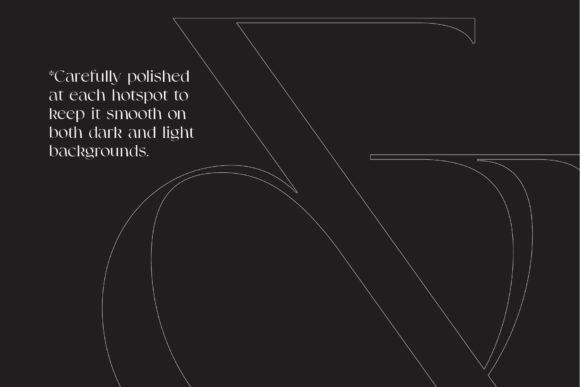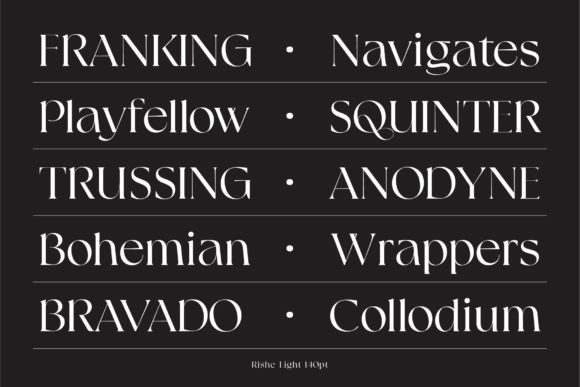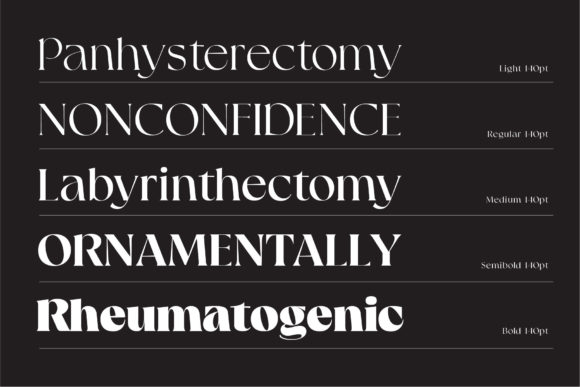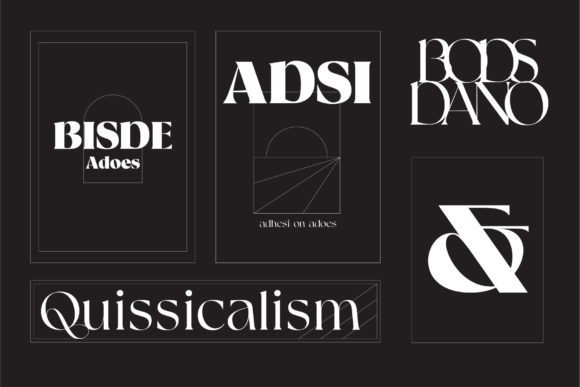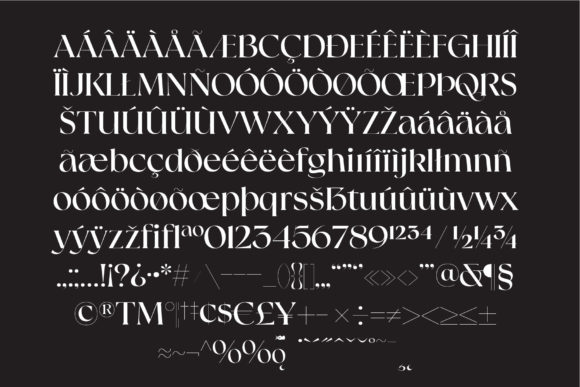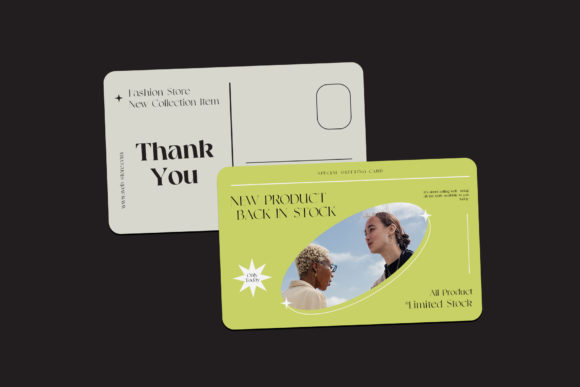
Introduction to Rische Font
Have you ever found yourself staring at a blank canvas, struggling to bring your creative vision to life? As a designer, we’ve all been there – the blank page staring back, begging for inspiration. It’s moments like these that we search for the perfect design resource to elevate our projects. That’s where Rische Font comes in – a stunning, elegant serif font that’s sure to captivate your audience and leave a lasting impression.
With its classy calligraphic influences and contemporary feel, Rische Font is the perfect addition to any creative project. Whether you’re designing a logo, creating a brochure, or developing a brand identity, this high-quality font is sure to take your design to new heights. And the best part? It’s available for free download, giving you the freedom to experiment and bring your unique vision to life.
Key Features of Rische Font
- High-quality font design suitable for various creative projects
- Unique, modern design that adds a touch of sophistication to any creative project
Honest Review: Rische Font
As a designer, I’m always on the lookout for high-quality design resources to enhance my creative projects. Recently, I stumbled upon the Rische Font, and I must say, it’s been a game-changer for me.
Here’s what I love about this font: ✨
- Its modern and sleek design makes it perfect for minimalist-inspired projects.
- The transparent background makes it easy to layer over other design elements.
However, I do have some reservations about the font: ⚠️
- The font family is quite limited, with only a few weights and styles to choose from.
- The font doesn’t support some of the more advanced typography features that I like to use in my projects.
Overall, I’m really impressed with the Rische Font. While it may have some limitations, its high-quality design and versatility make it a valuable addition to any designer’s toolkit. If you’re looking for a clean and modern font for your creative project, I’d definitely recommend giving it a try.
Rische Font
Tips for Getting the Most Out of Rische Font
For a high-quality design, use Rische Font in conjunction with a transparent background to create a clean and professional look. You can also experiment with different font sizes and styles to add visual interest to your design.